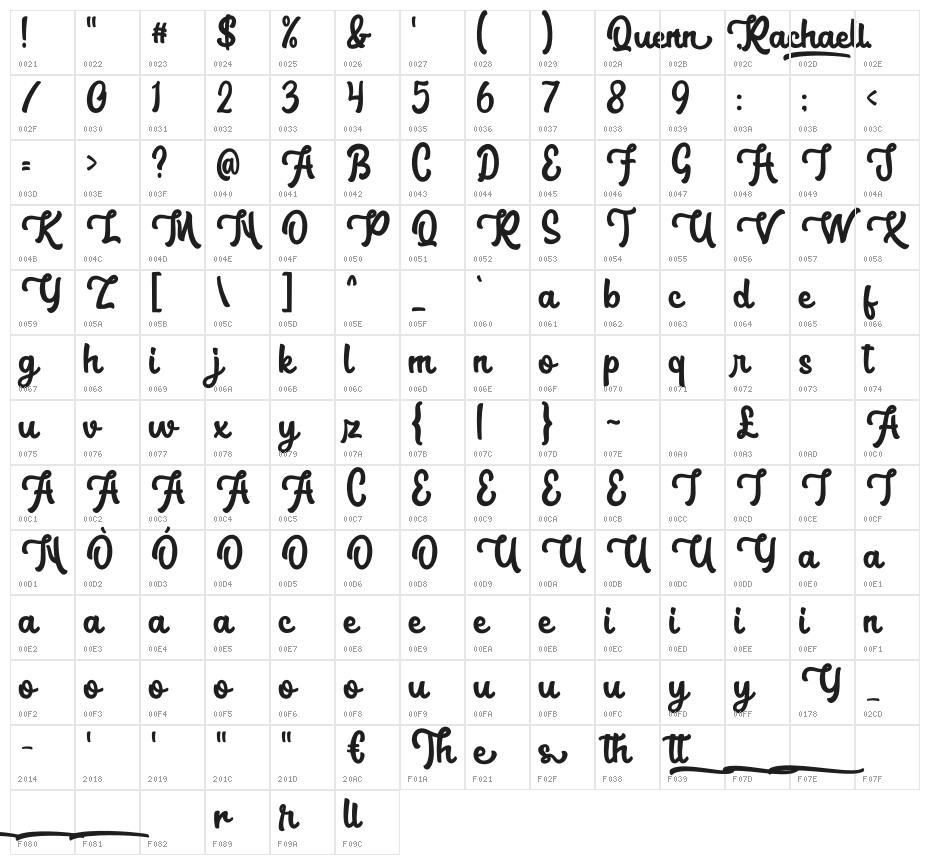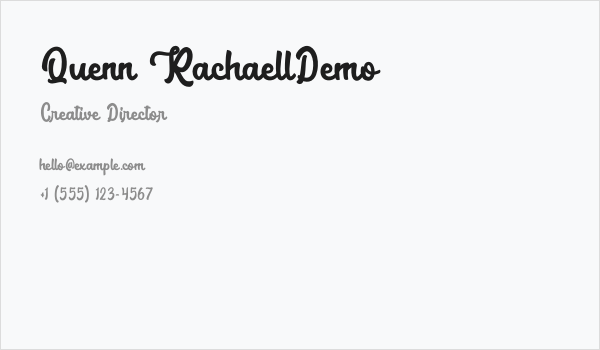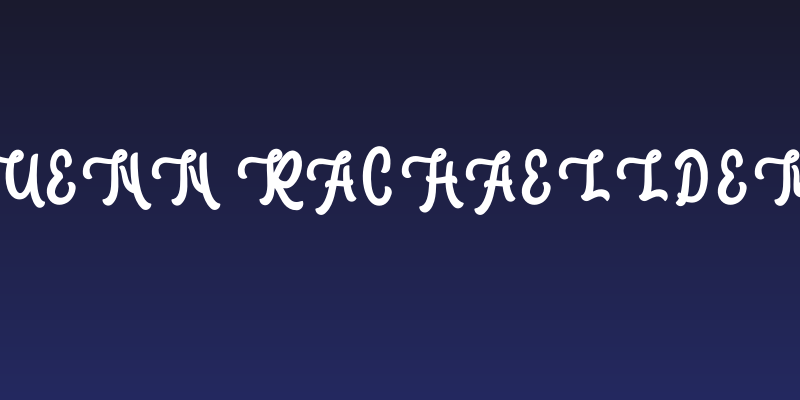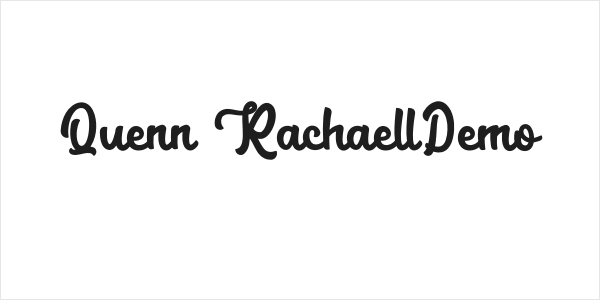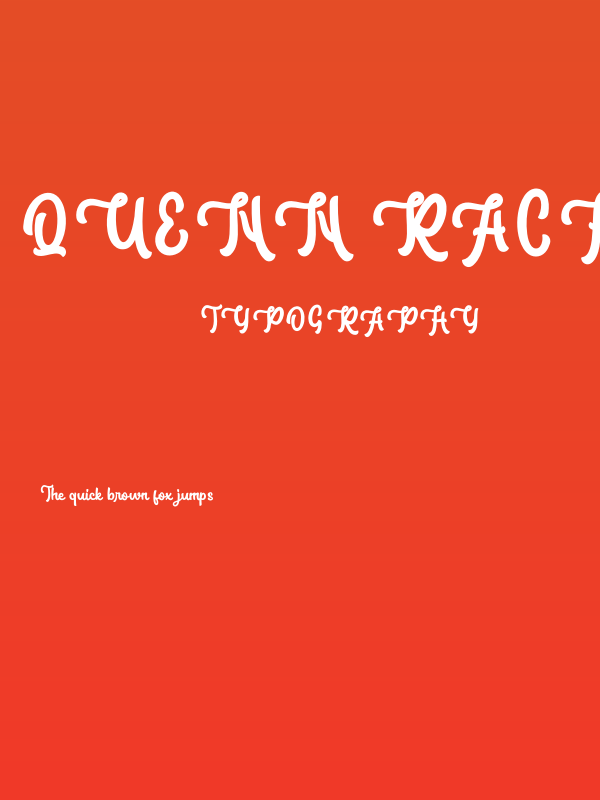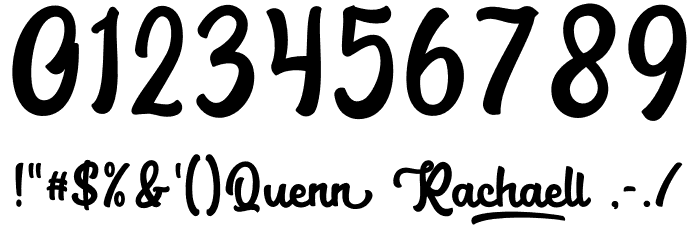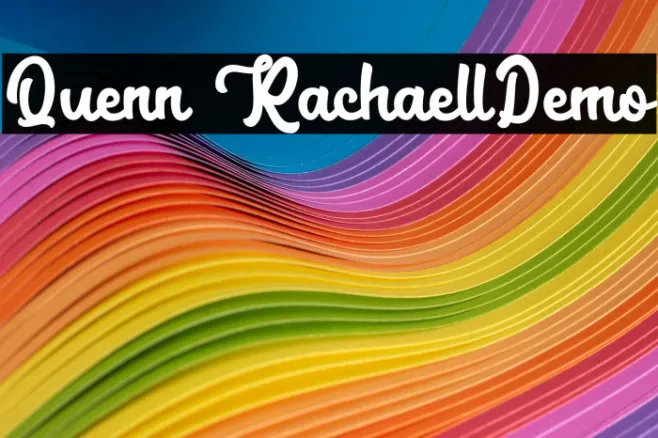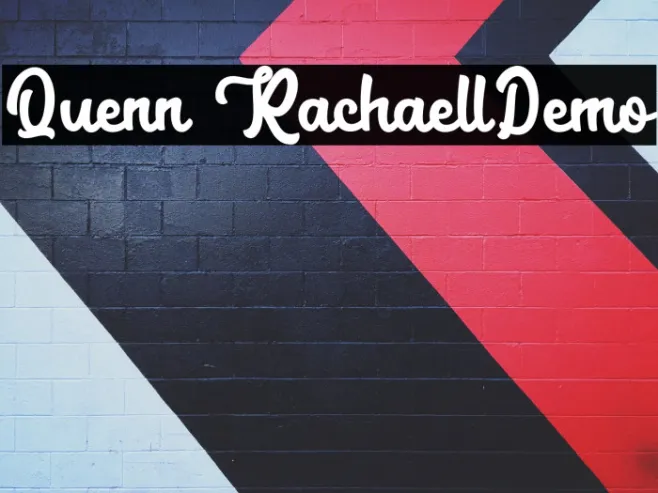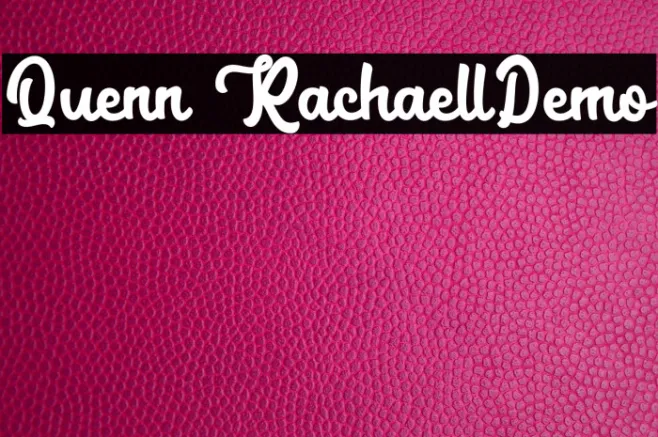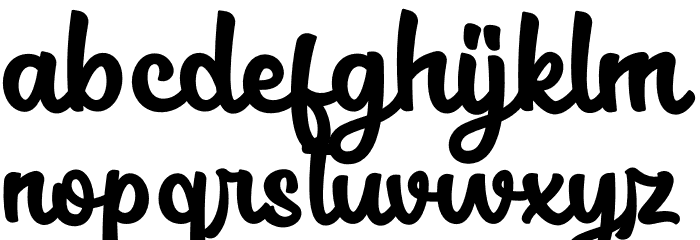
Quenn RachaellDemo Font
Quenn RachaellDemo Description
This font features a playful and whimsical script style with a hand-drawn appearance. The uppercase letters are characterized by their flowing, connected strokes, giving a sense of movement and fluidity. The lowercase letters maintain a consistent style, with rounded edges and a slightly exaggerated loop in letters like 'g' and 'y'. The numbers are bold and maintain the same playful style, making them easily readable. Special characters are designed to match the overall aesthetic, ensuring a cohesive look across all text. The font's unique style makes it stand out, perfect for creative and informal projects.